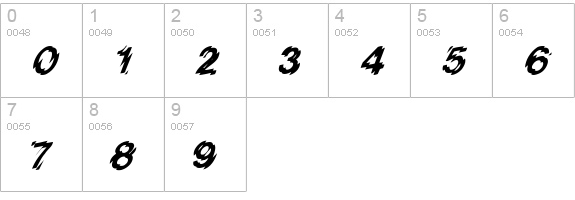
Blur Italic is a distinctive, italic variant in the Blur typeface family \xE2\x80\x94 well suited to design and typography projects.
Blur Italic font is a stylish and modern typeface that exudes elegance and sophistication. Its unique italicized design adds a touch of flair to any project, making it perfect for branding, advertising, and creative designs. The blurred effect gives it a dynamic and contemporary look, setting it apart from traditional fonts. The best part is that Blur Italic font is completely free to download at FontsMarket.com. This means you can easily access this stunning font to enhance your creations without any cost. Don't miss out on the opportunity to elevate your designs with this sleek and versatile typeface. Download Blur Italic font today and make a bold statement with your projects!